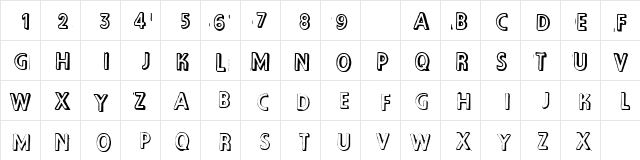
VintageNo1 Regular Font Preview
VintageNo1 Regular
VintageNo1 Regular Font Details
Design Context for VintageNo1 Typeface
VintageNo1 has the warm character of retro typography — evoking diners, record sleeves, and the golden age of print advertising.
Font Pairing: Combine VintageNo1 with a simple slab or neutral sans — period-accurate companions reinforce the vintage feel without competing for attention.
Pro Tip: Lean into VintageNo1's period character by pairing it with aged paper textures, muted colour palettes, and vintage illustration styles.